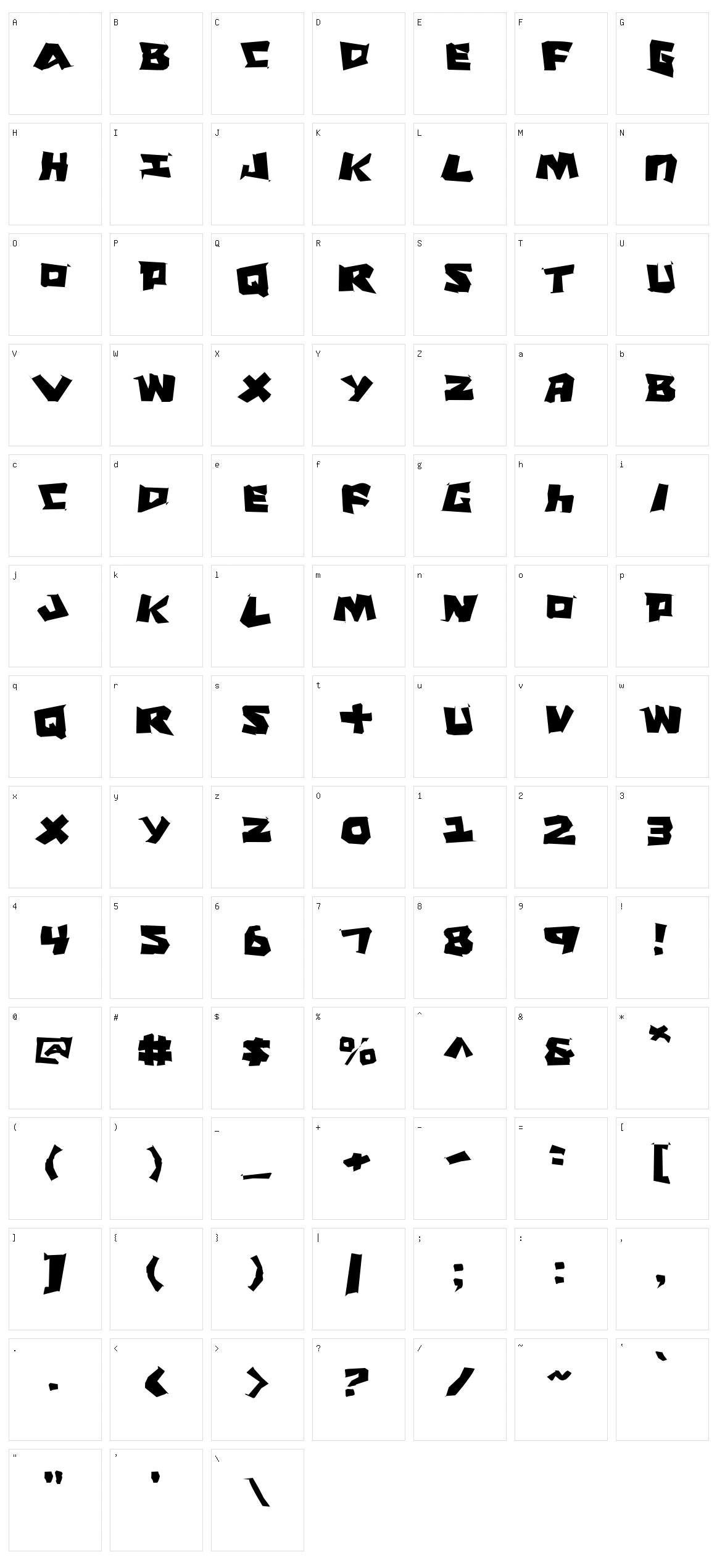
The free font Cro-Magnum is carefully designed by Iconian Fonts, showcasing a thoughtful balance of creativity and usability and falls under the Cartoon font style. When you download the ZIP file, it contains only 185 KB of font files, making it lightweight and quick to download. Please review the license details below to understand permitted usage and distribution rights. If license information is not available, we recommend using this font for personal projects only or contacting the author directly for commercial usage permissions.